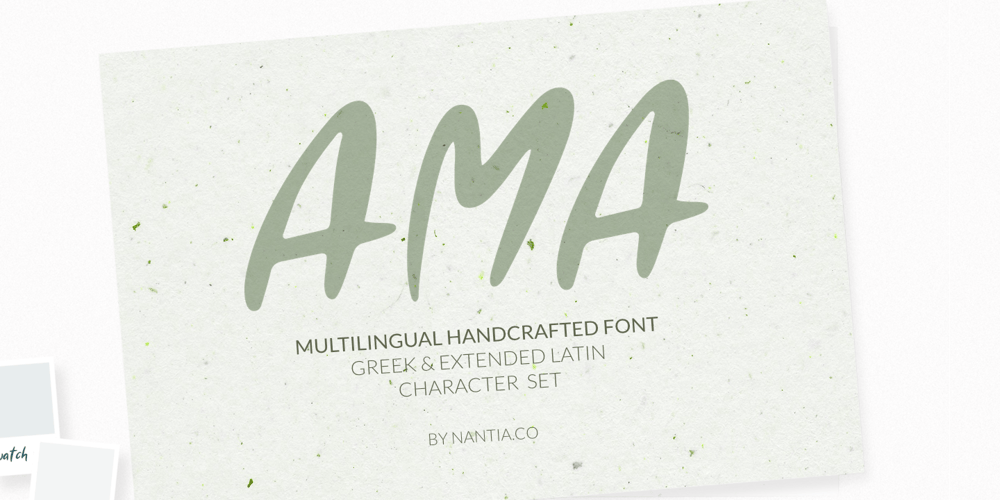
AMA Font Family was designed by Konstantina Louka and published by Nantia.co. AMA contains 1 styles and family package options. AMA Greek and Latin Font is a hand-made display font. Of course, the font supports a full set of Greek chars and an extended Latin character set with diacritics. Τhis typeface can be a mighty companion to your next graphic design project. From “hand-written” quotes to product packaging, merchandise, and branding projects, this font is so versatile that it can cover them all.